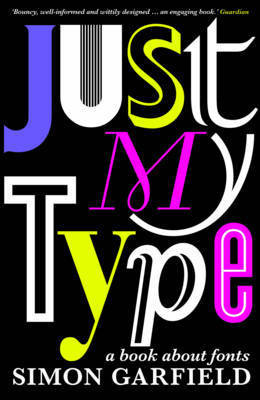
Just My Type: A Book About Fonts
A captivating journey through the history and culture of fonts.
If you're fascinated by design, branding, or simply the stories behind the stuff we see every day, you'll find this book engaging. It brings fonts to life, showing how they reflect personalities, eras, and even political moments. Fans of creative stories and cultural history will love how it unveils the hidden world of typography that influences our lives in more ways than we realize.